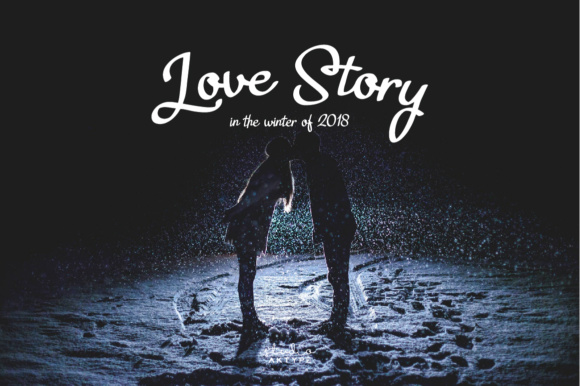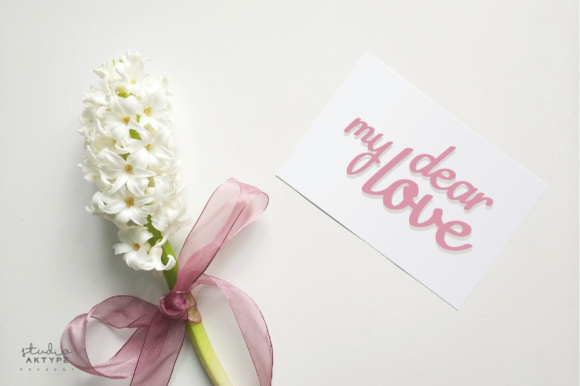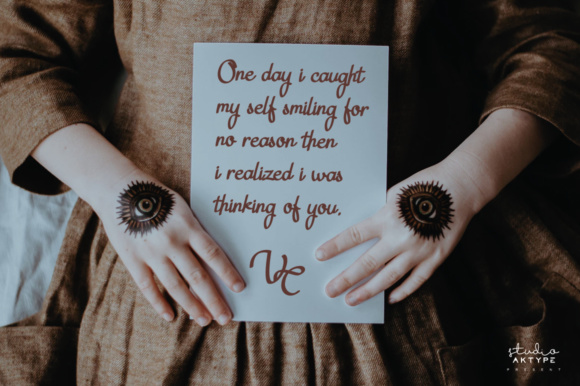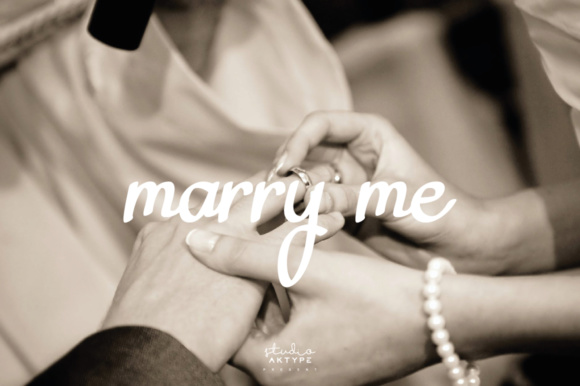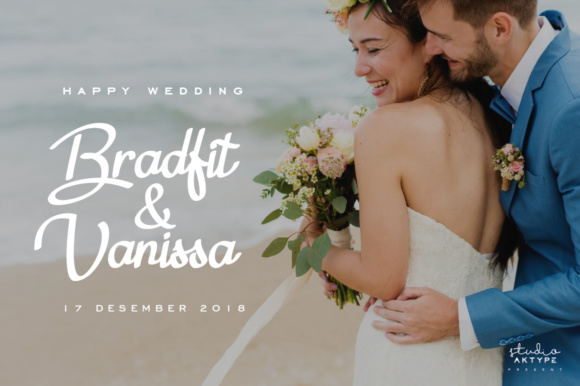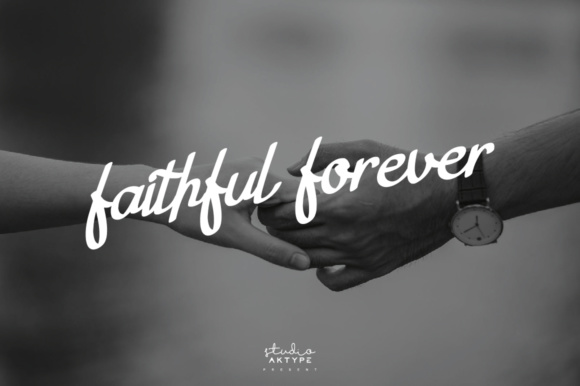
Introduction to Nagitta Font
Have you ever been lost in the moment, surrounded by creativity, and suddenly, the perfect font appears? That’s exactly what happened to the designer behind the stunning Nagitta Font. Inspired by a romantic love story, this beautiful script font has captured the hearts of designers worldwide. With its elegant and handwritten feel, the Nagitta Font is a treasure trove for designers seeking a high-quality design resource.
Imagine having the perfect font to elevate your creative project, whether it’s a wedding invitation, a blog post, or a social media graphic. The Nagitta Font’s versatility and charm make it an ideal choice for designers who crave a unique and personal touch. And the best part? This exquisite font can be downloaded for free, allowing you to experiment with different designs without worrying about licensing fees. Whether you’re working on a project with a transparent background or a bold, eye-catching layout, the Nagitta Font is sure to impress.
Key Features of Nagitta Font
• High-quality design resource ideal for creative projects, offering a unique aesthetic.
• Transparent background, allowing for seamless integration with various design elements.
• Designed to be highly legible, with a clear and crisp font style suitable for both digital and print applications.
Honest Review: Nagitta Font
I recently stumbled upon the Nagitta Font, a free download available as a design resource for creative projects. Upon initial inspection, I was impressed with its clean and modern aesthetic.
• ✨ High-quality design: The Nagitta Font boasts a sleek, sophisticated look that’s perfect for branding and marketing materials.
• ✨ Versatile usage: This font is ideal for a variety of creative projects, including digital and print media.
• ✨ Transparent background: The font’s transparent background makes it easy to customize and pair with different backgrounds.
• ⚠️ Limited font styles: The Nagitta Font currently only offers a few styles, which may not be enough for designers looking for a more extensive font library.
• ⚠️ Limited language support: The font may not support all languages, which could be a concern for designers working on multilingual projects.
Overall, I’m impressed with the Nagitta Font’s design and versatility. While it may have some limitations, it’s a great free resource for designers looking for a high-quality font for their creative projects.
Nagitta Font
The Nagitta Font is a high-quality design resource ideal for creative projects. It features a unique and stylish design, perfect for making a statement. With its transparent background, you can easily integrate it into your designs without any distractions.
To get the most out of the Nagitta Font, consider the following tips:
• Experiment with different font sizes and styles to achieve the desired effect.
• Combine the Nagitta Font with other design elements to create a cohesive look.
• Use the font in conjunction with a transparent background to create a modern and sleek design.
The Nagitta Font is suitable for a variety of design projects, including:
• Logo design and branding.
• Infographic design.
• Brochure and flyer design.
• Web design and development.
Alternatives to Nagitta Font
The Great Vibes Font is a high-quality, elegant script font perfect for creative projects that require a sophisticated and artistic touch. It’s ideal for use in designs with a transparent background to showcase the intricate details of the font. Great Vibes Font is a great alternative to Nagitta Font for designers looking for a more refined and luxurious feel.
The Alex Brush Font is a beautiful, handwritten font that’s perfect for use in designs where a personal and creative touch is needed. It’s a great choice for designers working on projects that require a high level of emotional connection and a sense of warmth. Compared to Nagitta Font, Alex Brush Font has a more organic and natural feel, making it ideal for use in designs with a more rustic or vintage aesthetic.
The Dancing Script Font is a lively and elegant script font that’s perfect for use in designs where a sense of movement and energy is needed. It’s a great choice for designers working on projects that require a high level of creativity and playfulness. Compared to Nagitta Font, Dancing Script Font has a more dynamic and expressive feel, making it ideal for use in designs with a more modern and trendy aesthetic.
Q: Does the Nagitta Font have a transparent background?
Yes, the Nagitta Font has a transparent background, making it easy to integrate with your design. You can use it for creative projects that require a high level of customization.